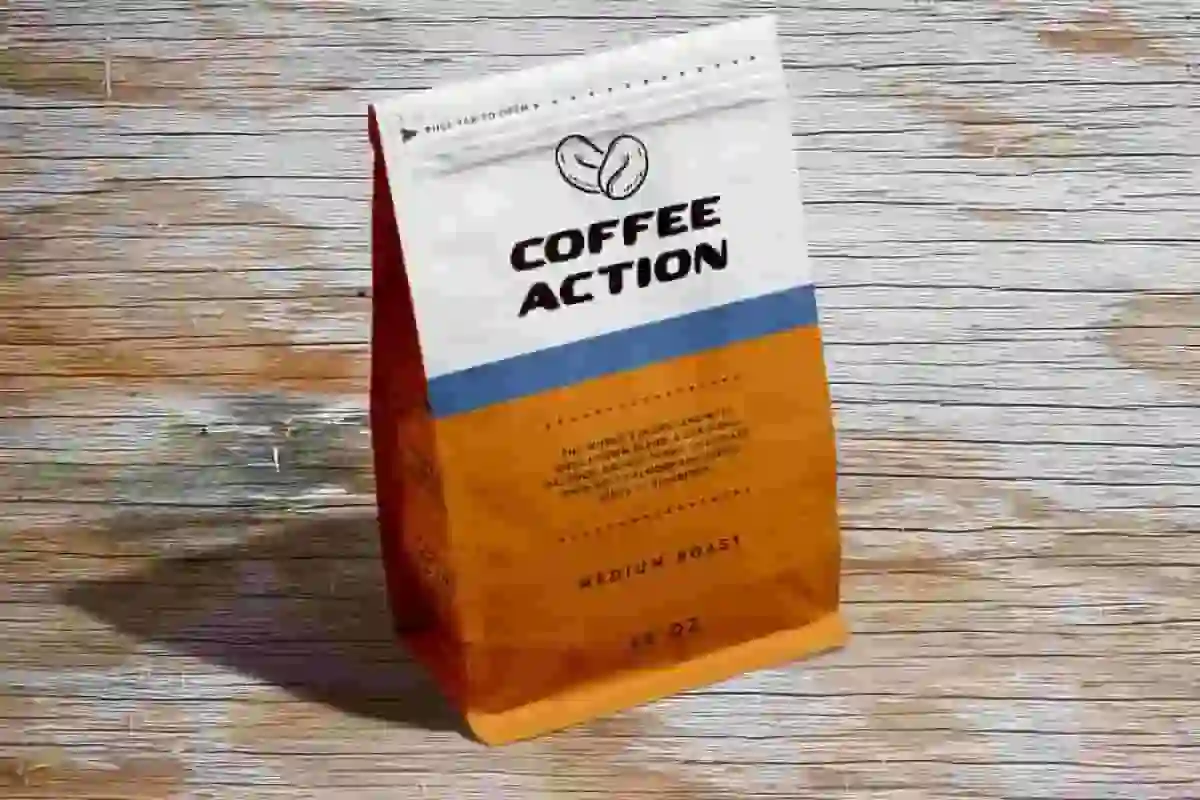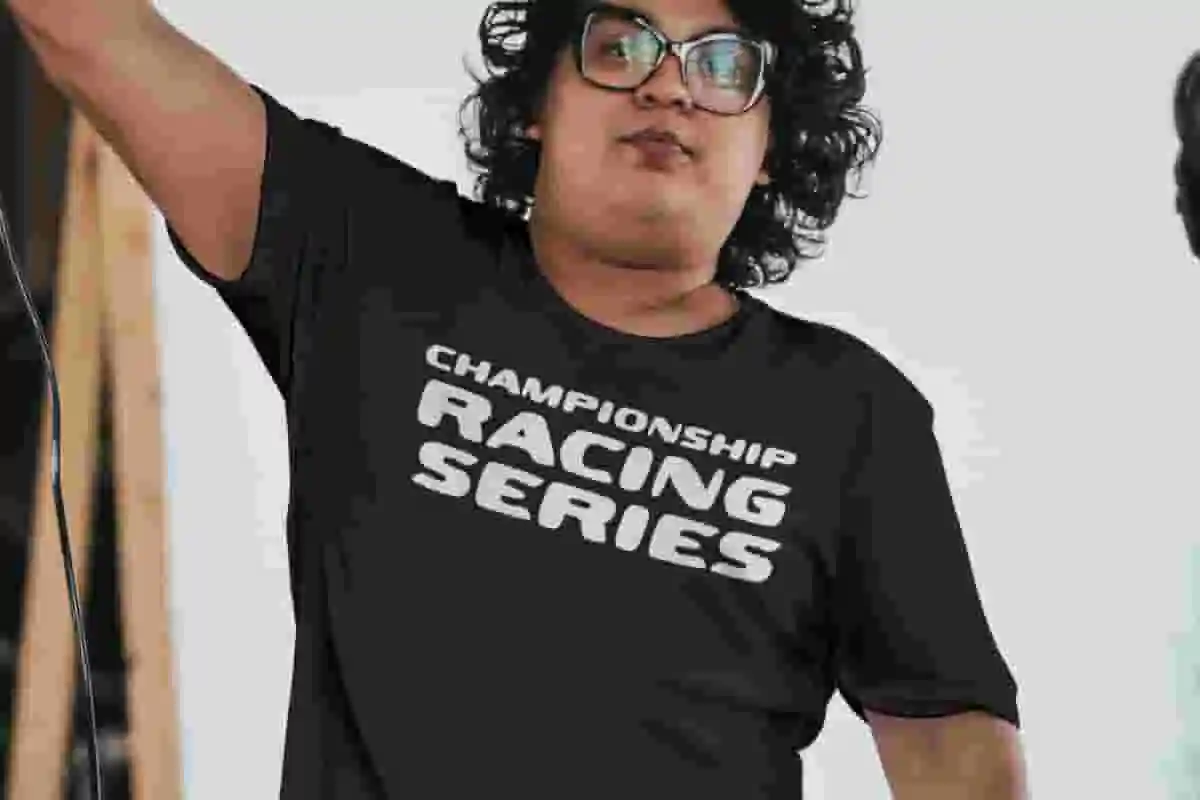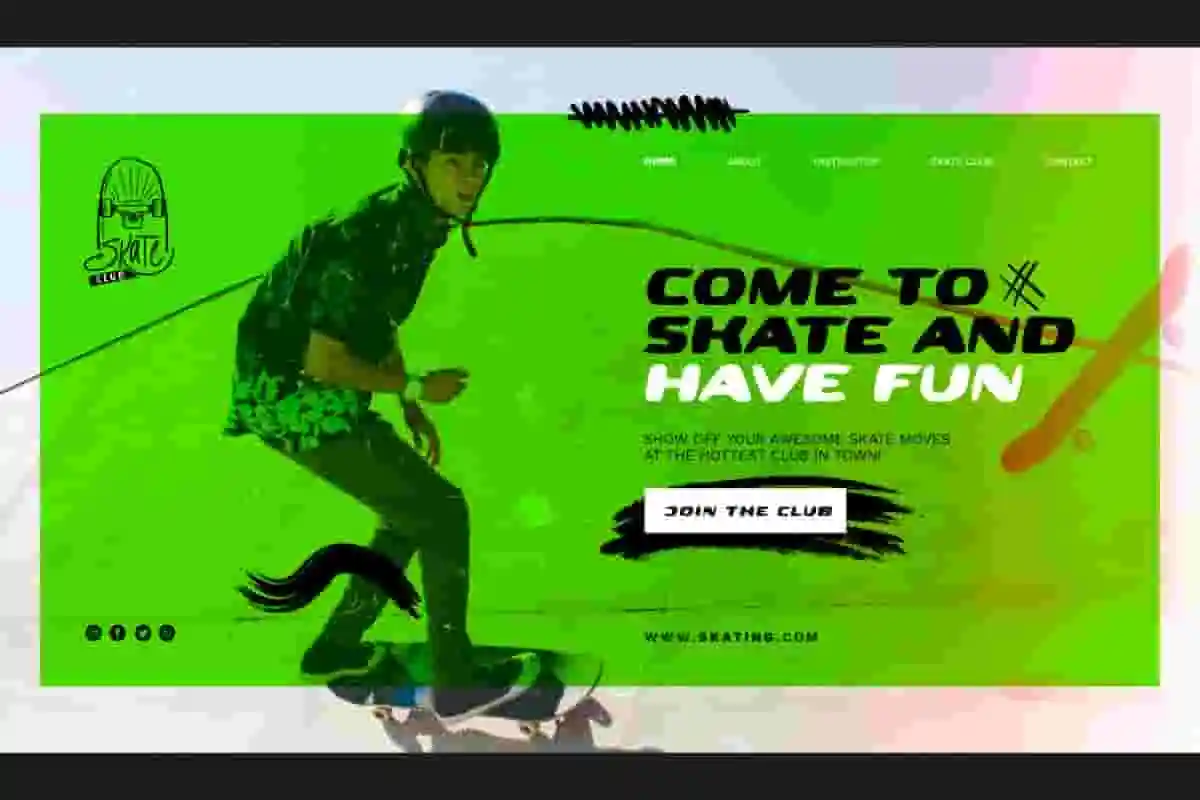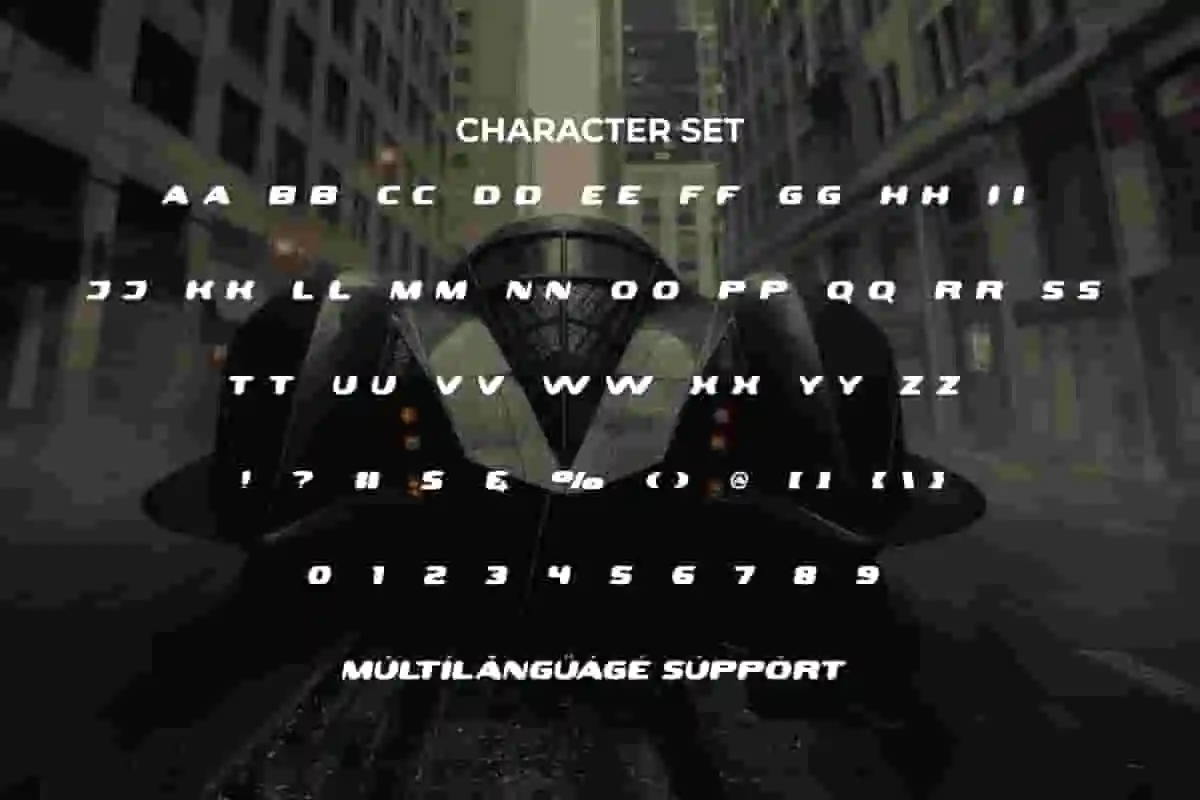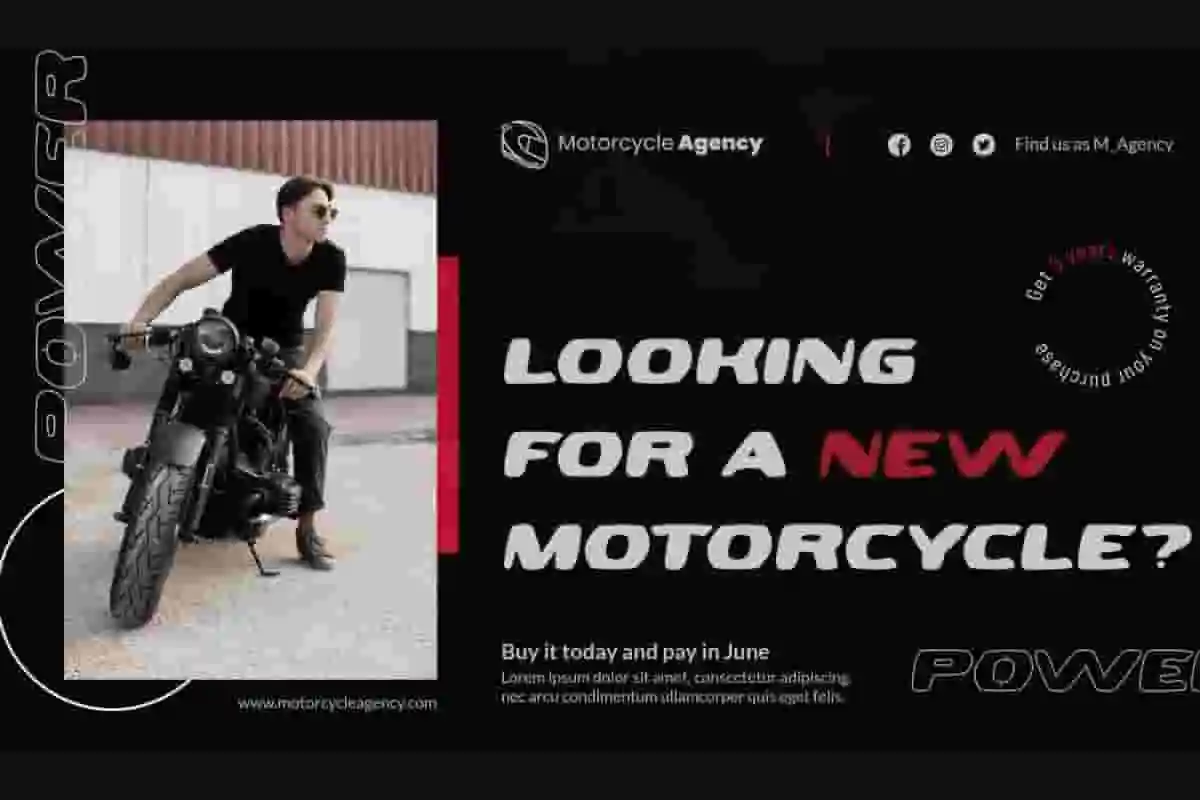
Game Action Font
Game Action Font is a stylish font that is suitable for sports themes, by NoahType. This font has a casual style and its shape is made unique so that it can provide an impressive appearance. This font will be suitable for a lot of projects, such as custom design, stationery, label, poster, signage, catalog, cover, quotes, website, and more!
Game Action Font includes full set of Uppercase and Lowercase Basic Characters, Numerals and Punctuation. This font has a cool vibes that will make you believe it is the perfect choice for many industries, such as sports, racing, game, automotive, advertisement, café, event organizer, fashion, printing, publishing, etc.